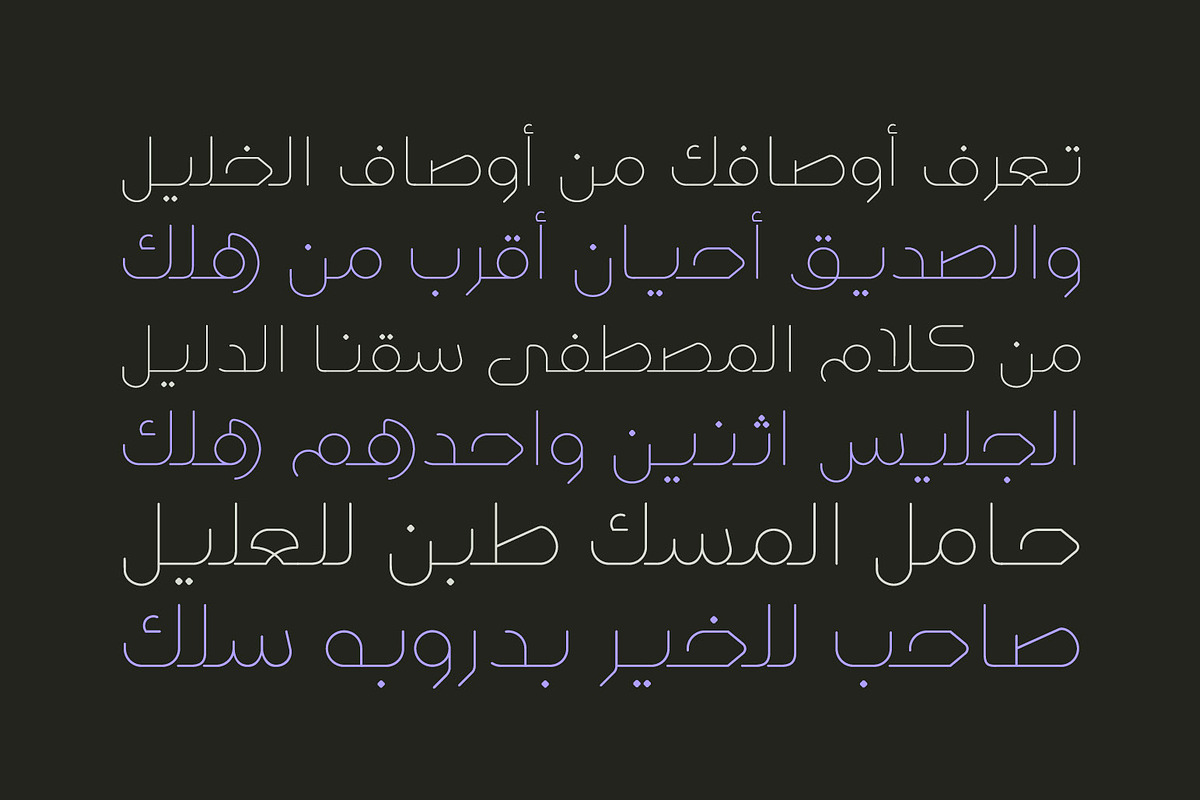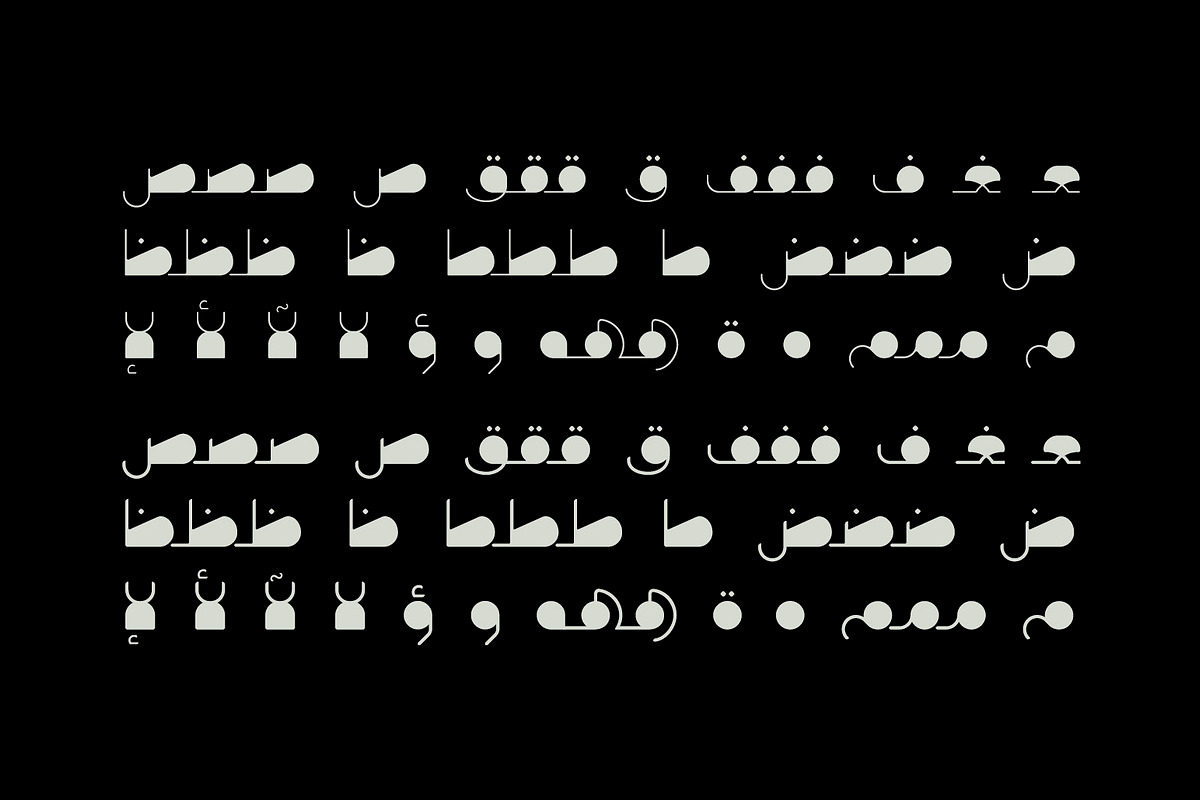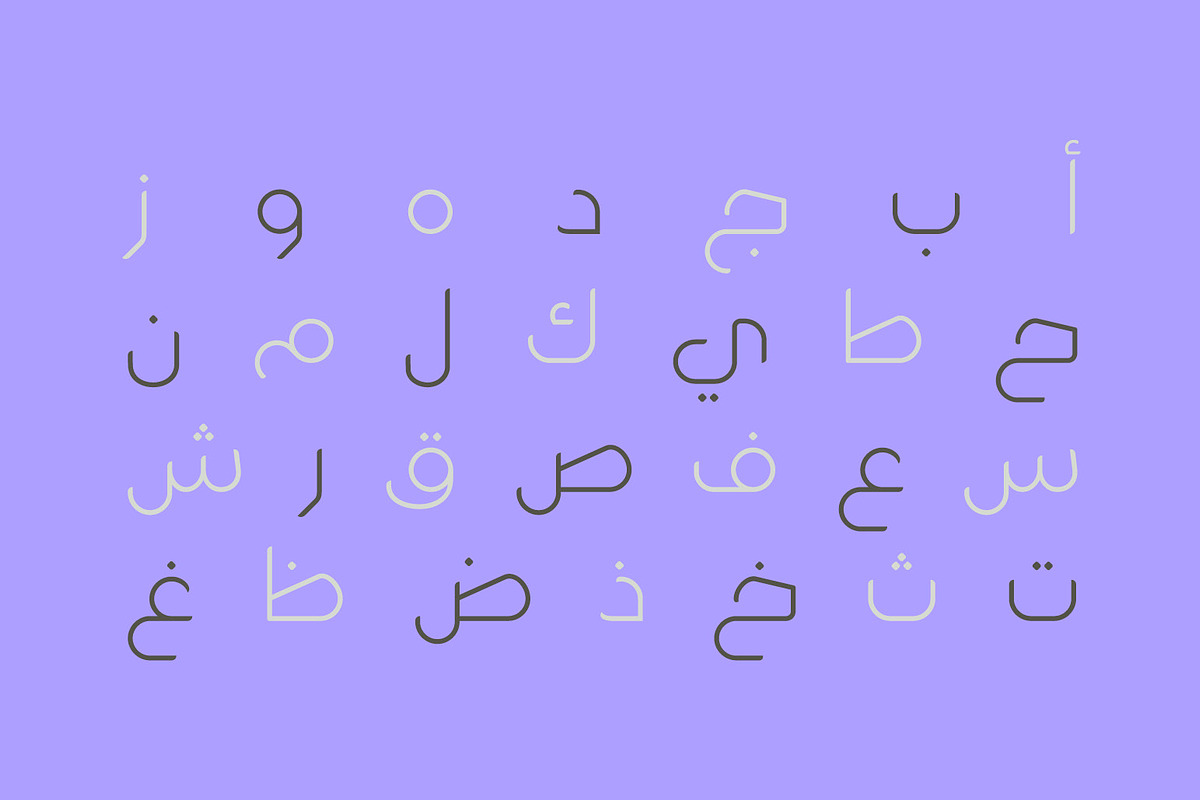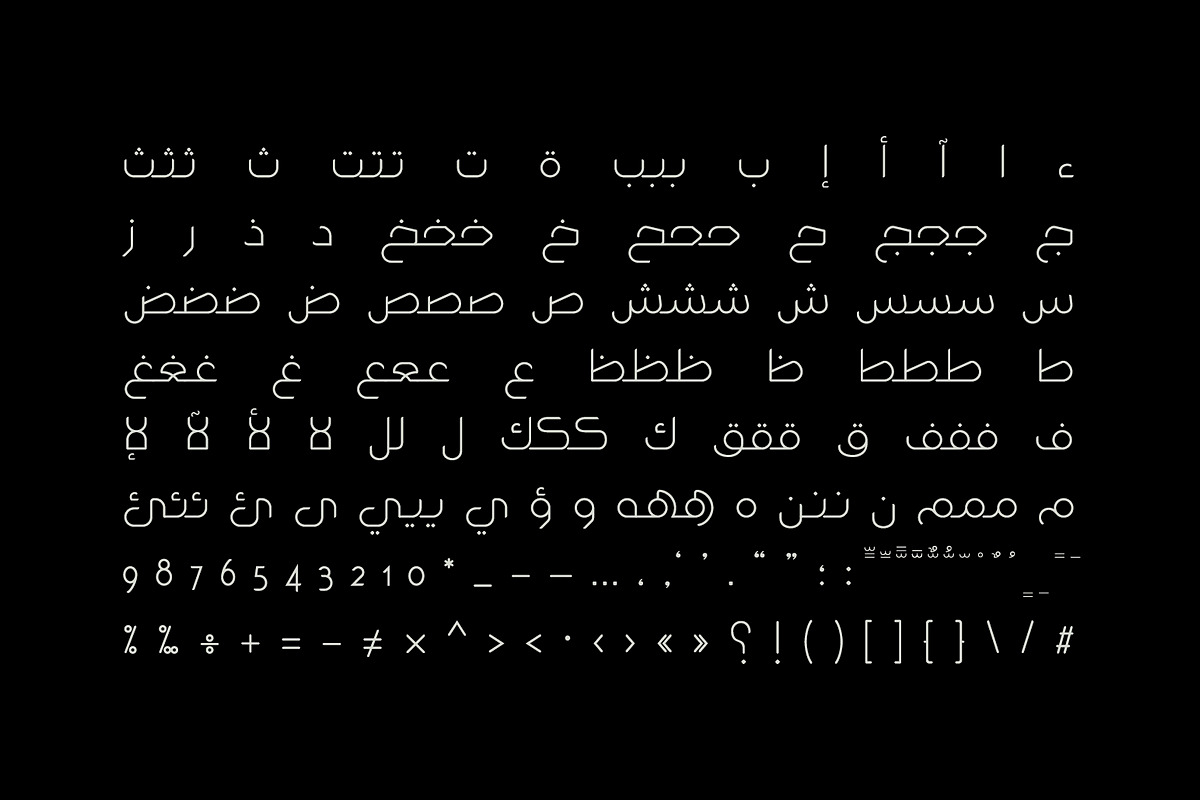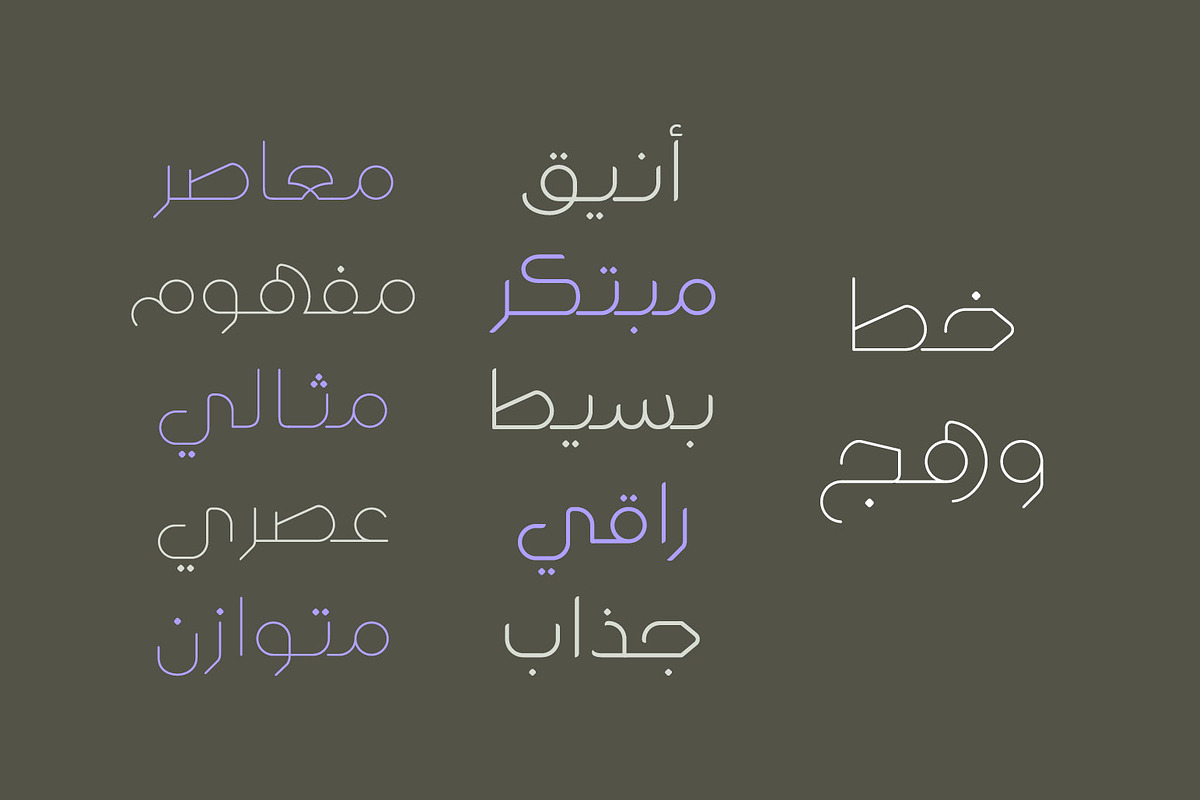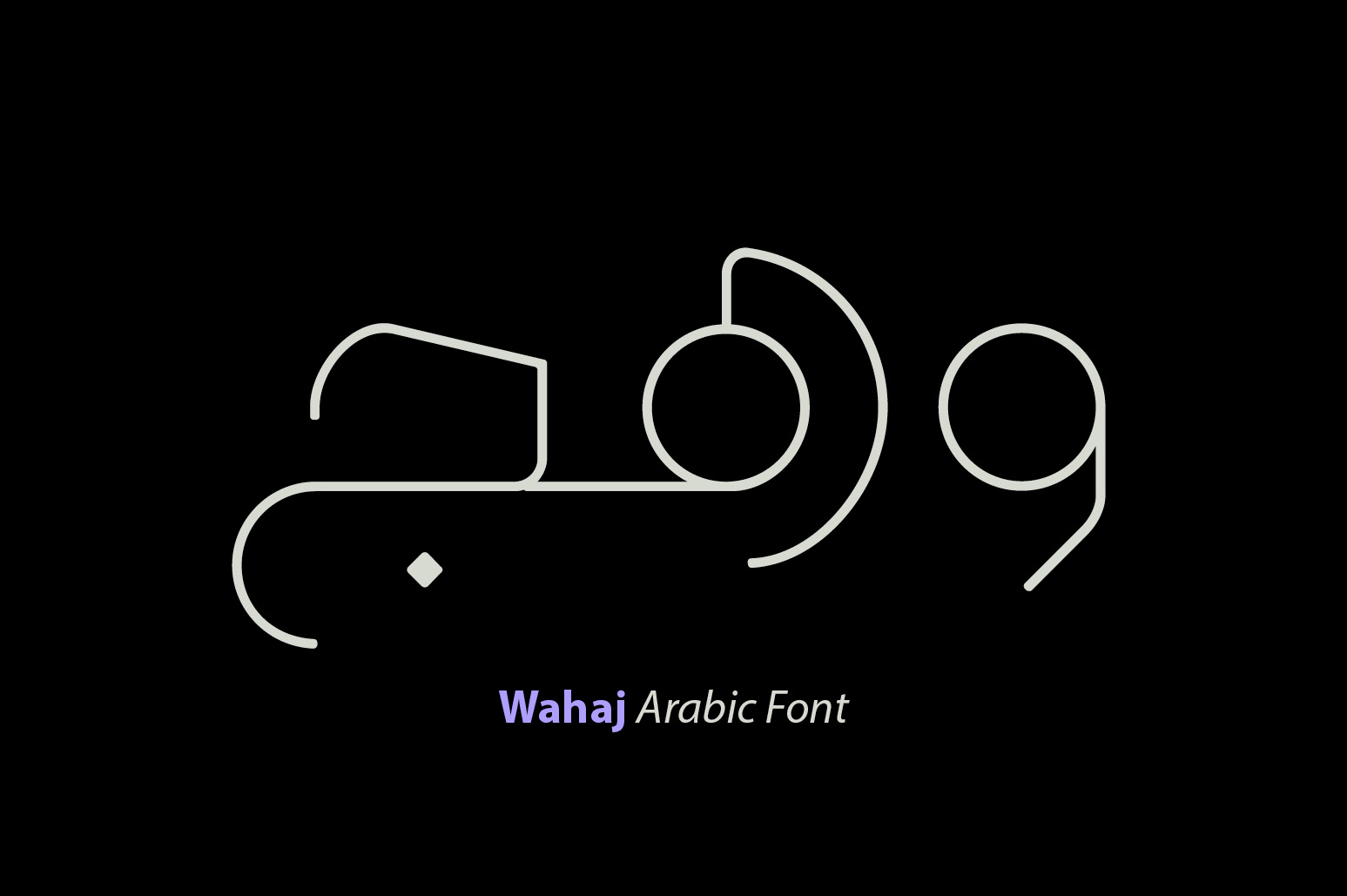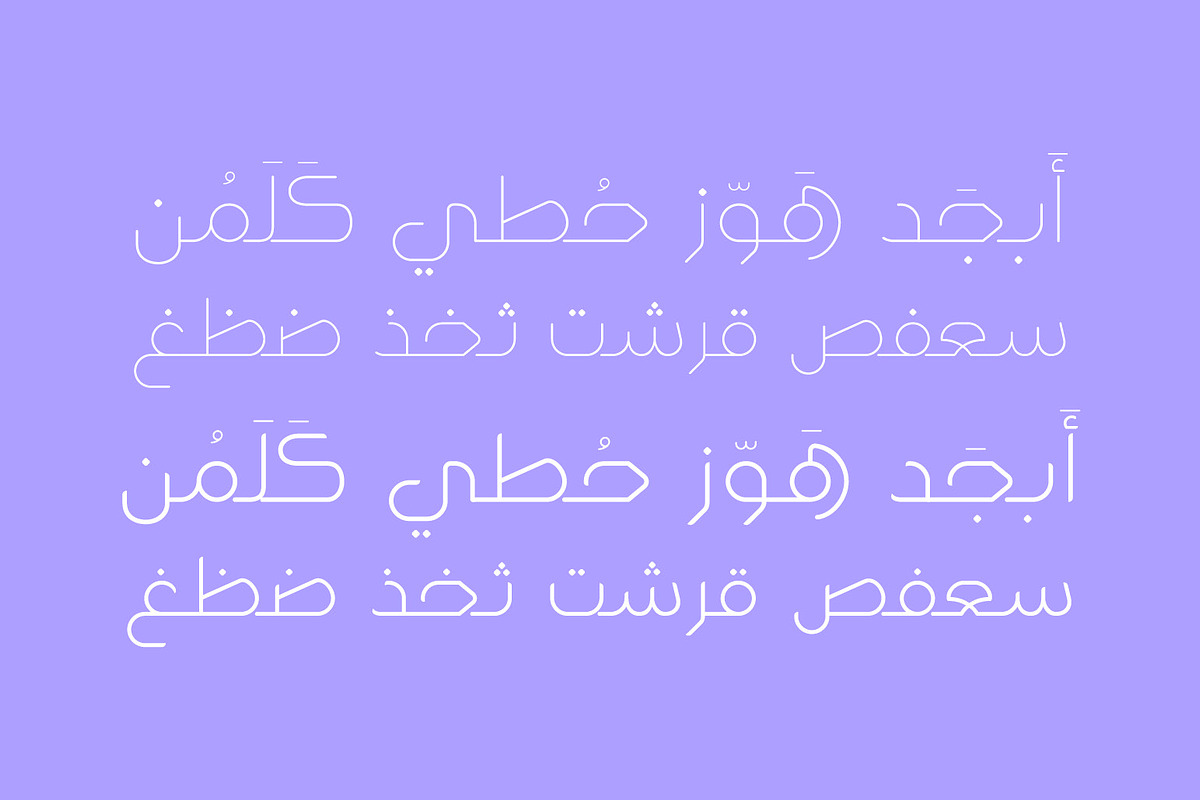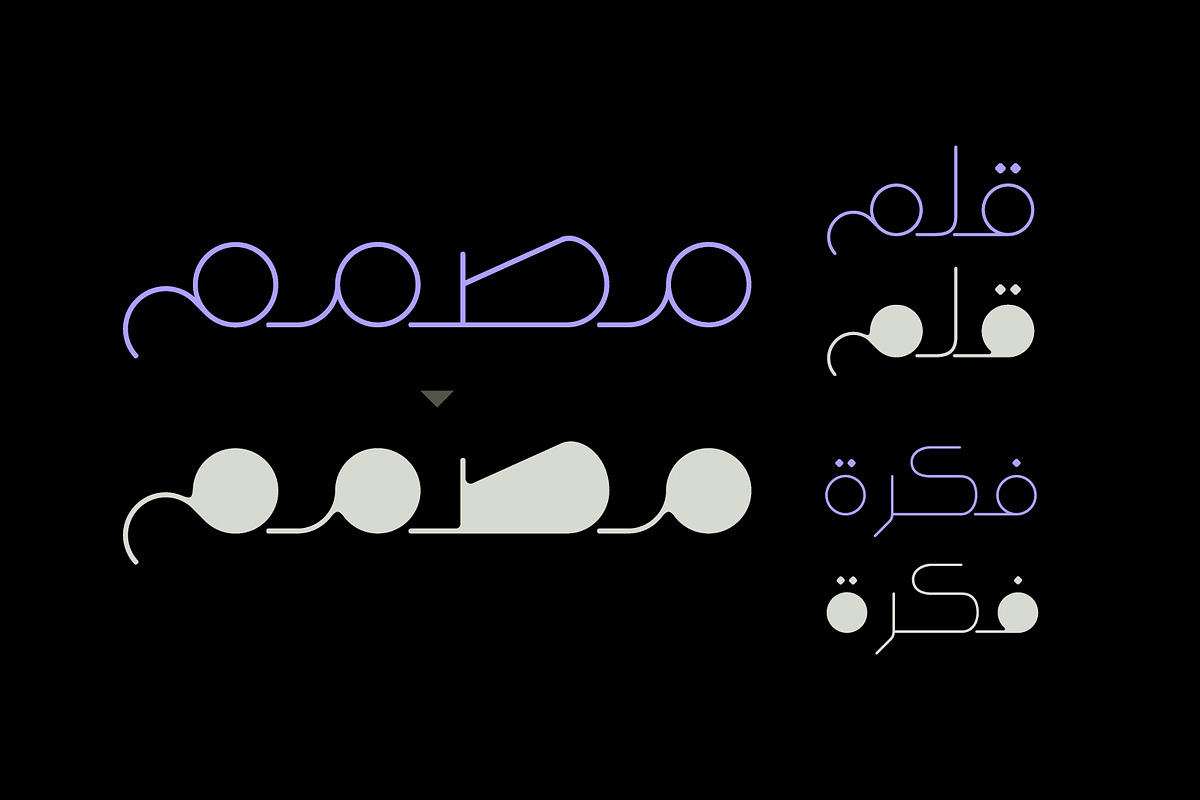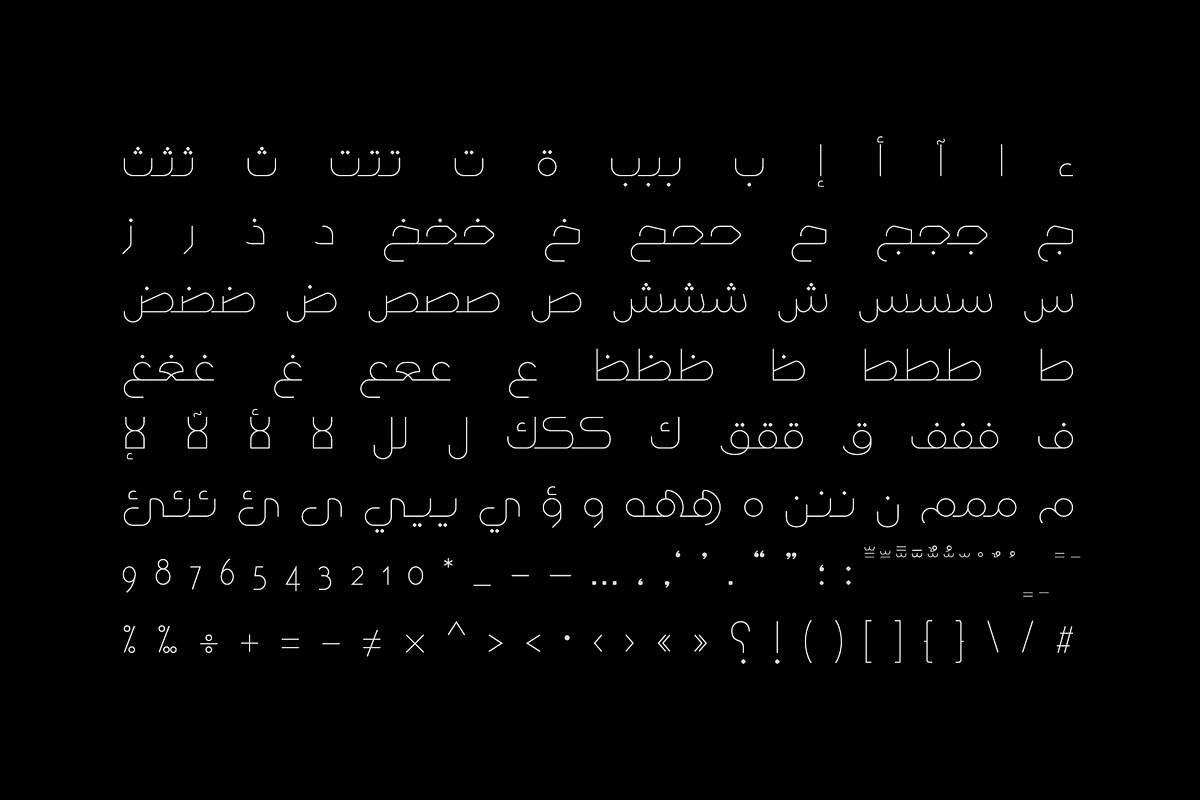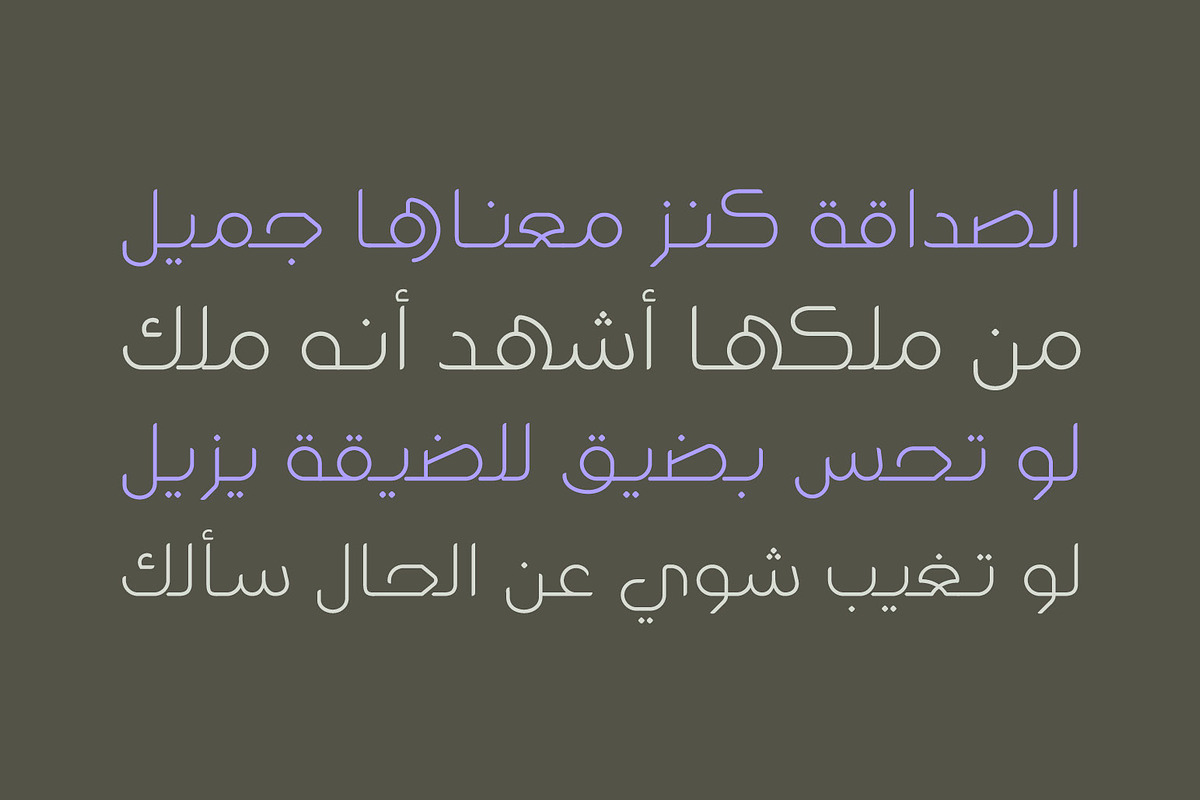
Wahaj - Arabic Font
Wahaj (the Arabic word for 'Glare') is an Arabic typeface that combines elegance with modernism. This font is suitable for various range of design applications including web, UI/UX, branding, advertising, publishing and mobile applications.